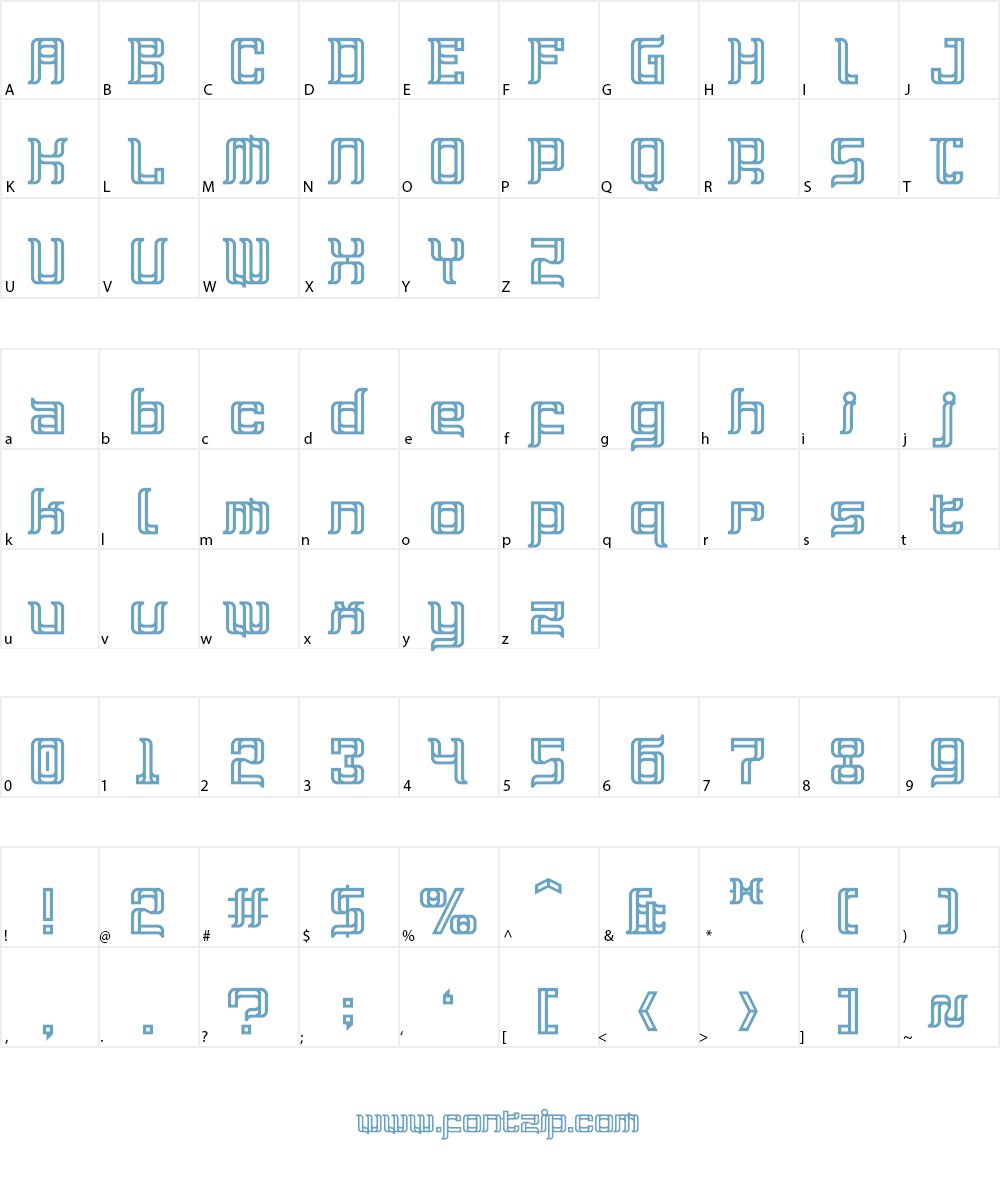
I finally made a folded-/ribbon-style design. This one contains a number of experimental techniques. Most notably, the swept parts of glyphs are allowed to extend beyond the letterwidths and sometimes even the baselines. This enhances the sense of movement, creates some interesting linkages, and reduces the need for kerning.
Supports Danish, Dutch, English, Finnish, French, German, Hungarian, Icelandic, Italian, Norwegian, Polish, Portuguese, Spanish, and Swedish among others. Alternate tilde on "±".